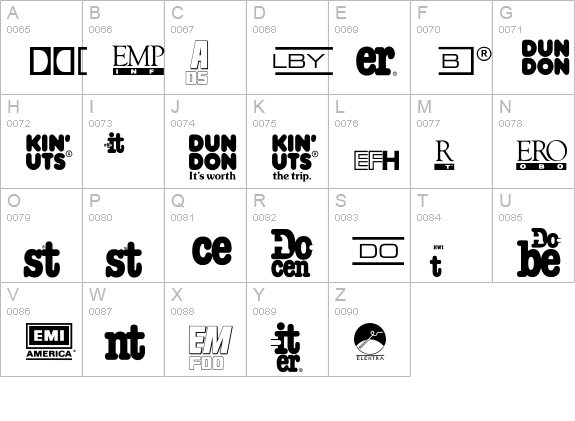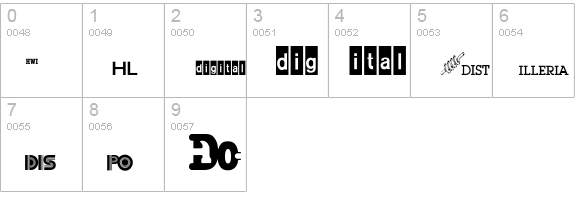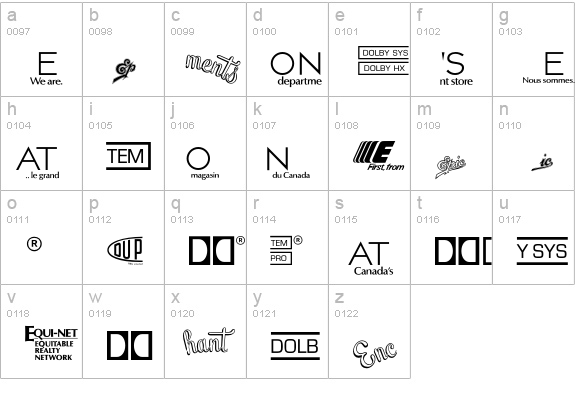
LogosCompanyP06 font is a modern and stylish typeface that exudes professionalism and sophistication. With its clean lines and elegant curves, this font is perfect for a wide range of design projects, from branding to editorial design. The versatility of LogosCompanyP06 font makes it an ideal choice for both digital and print applications. What sets LogosCompanyP06 font apart is that it is available for free download at FontsMarket.com. This means that you can easily access this high-quality font without any cost, making it a valuable addition to your font library. Whether you are a designer, marketer, or business owner looking to elevate your projects, LogosCompanyP06 font is a fantastic option that combines style and accessibility. Download LogosCompanyP06 font today and enhance your designs with its professional aesthetic.